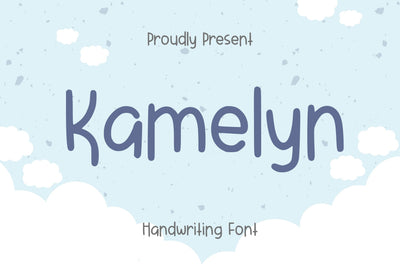
Kamelyn Handwriting Font
Kamelyn is a cute and simple lettered handwritten font that can be used for all chalkboard quotes or teaching material! Its authentic look will add a realistic feel to your designs.